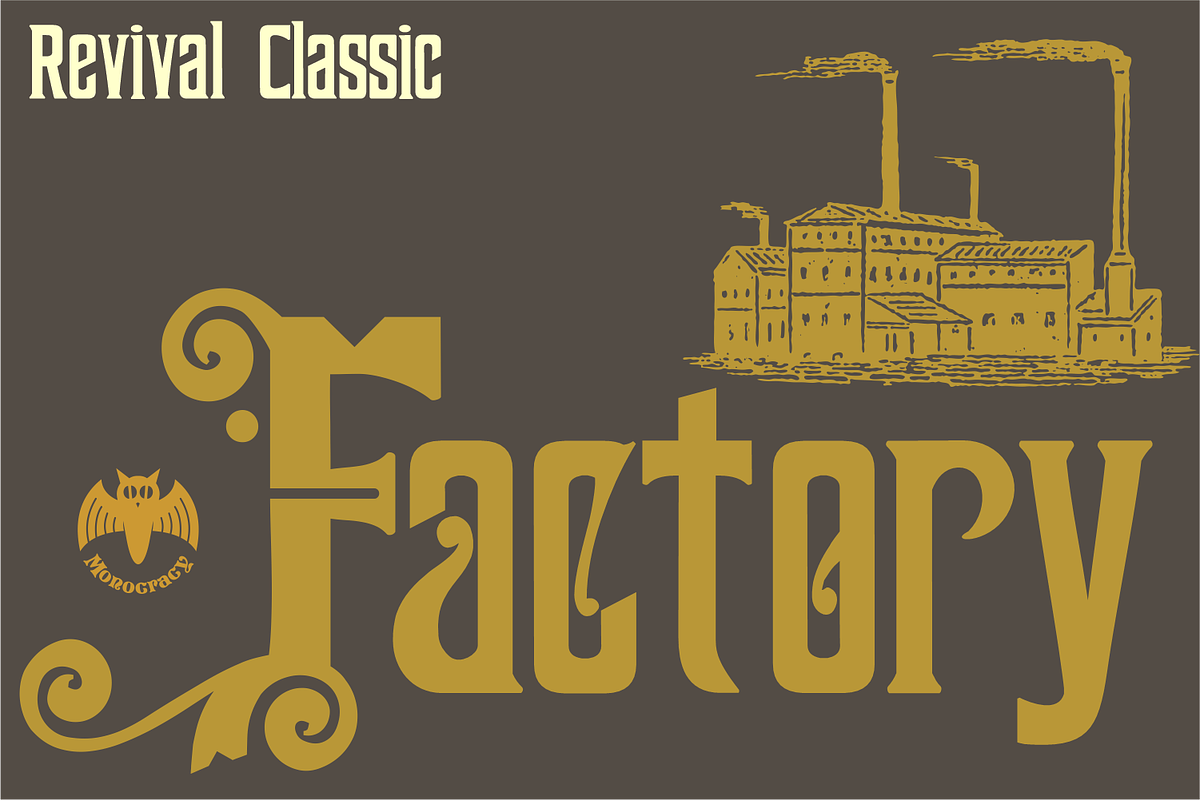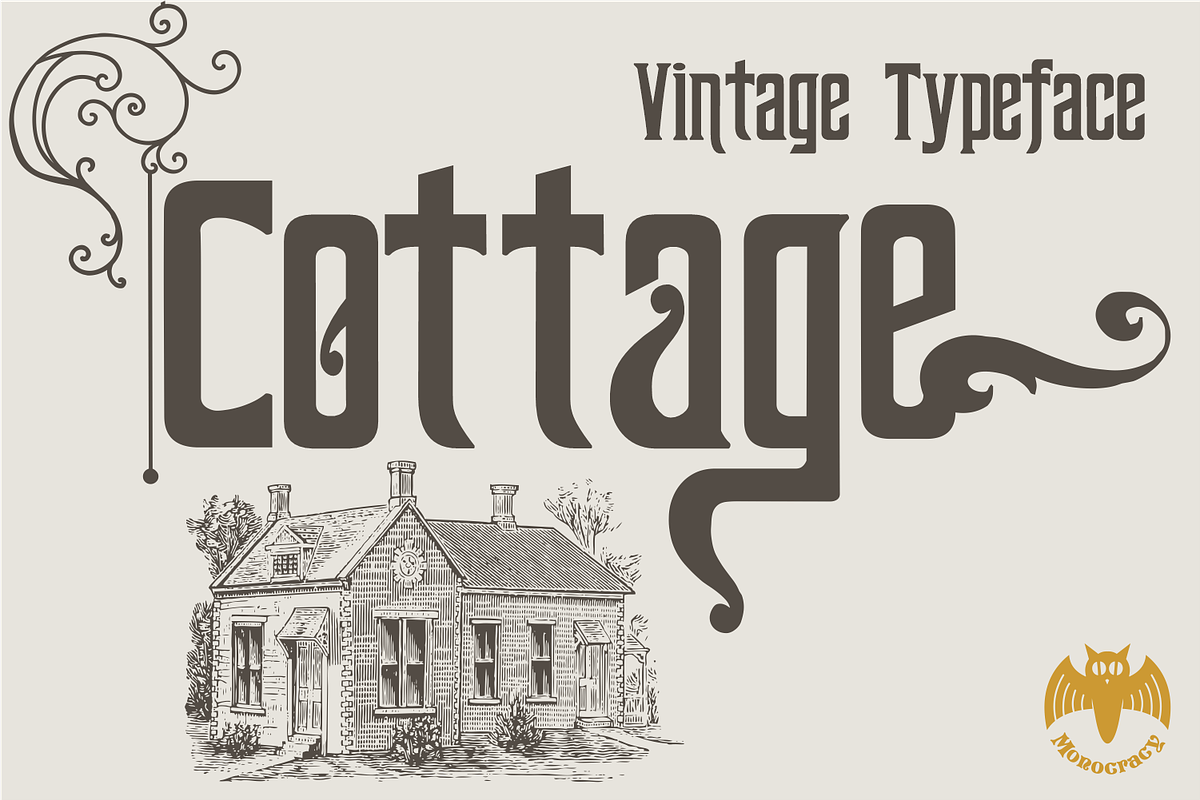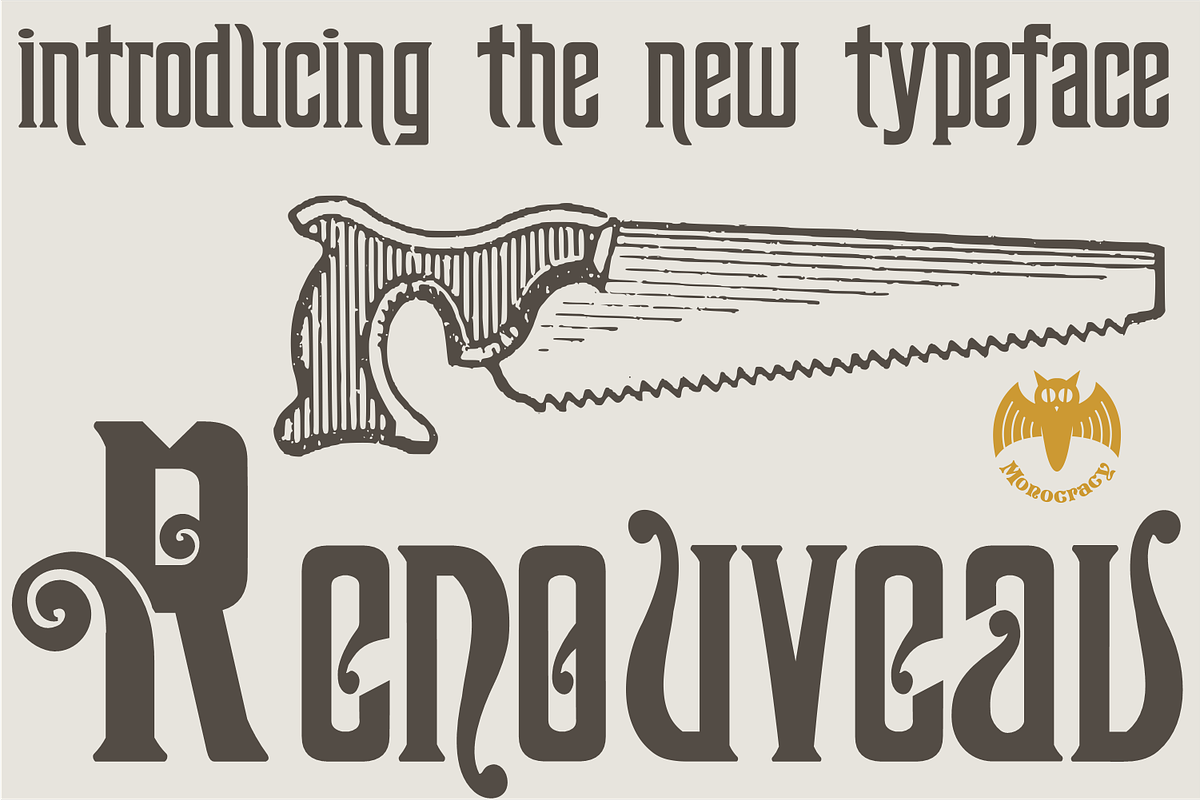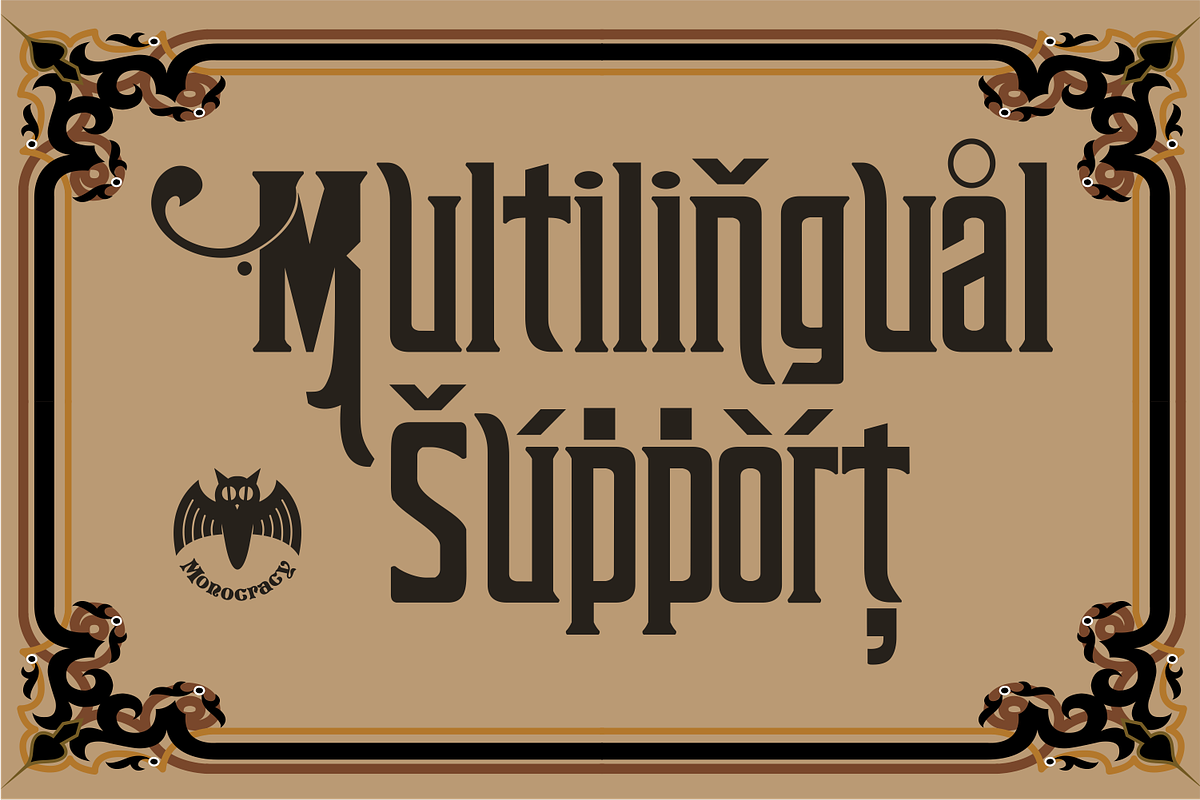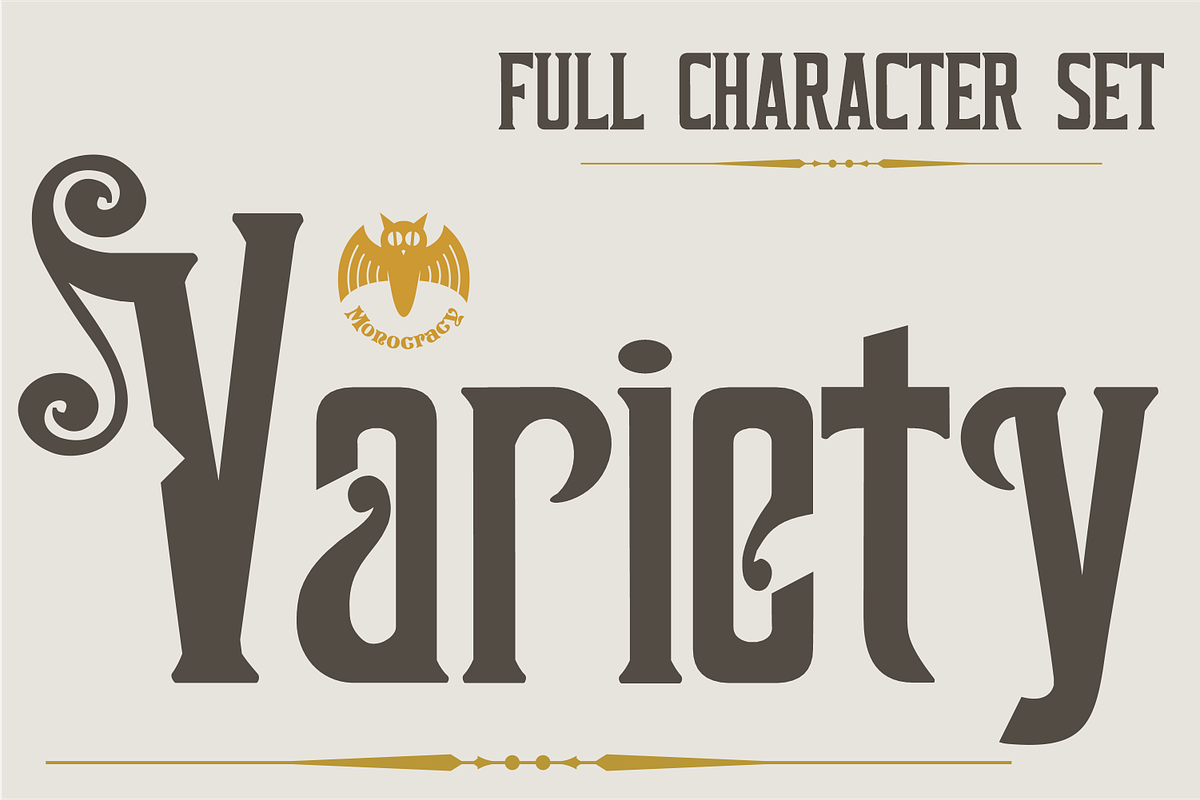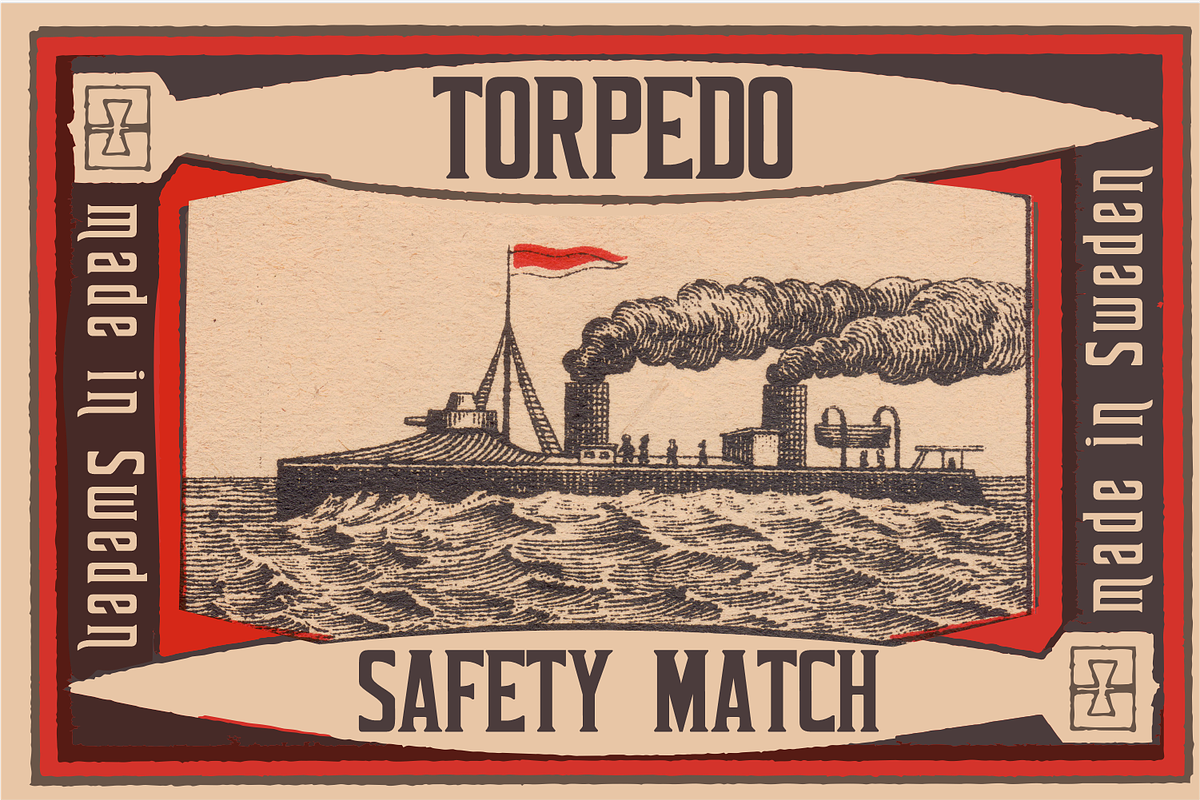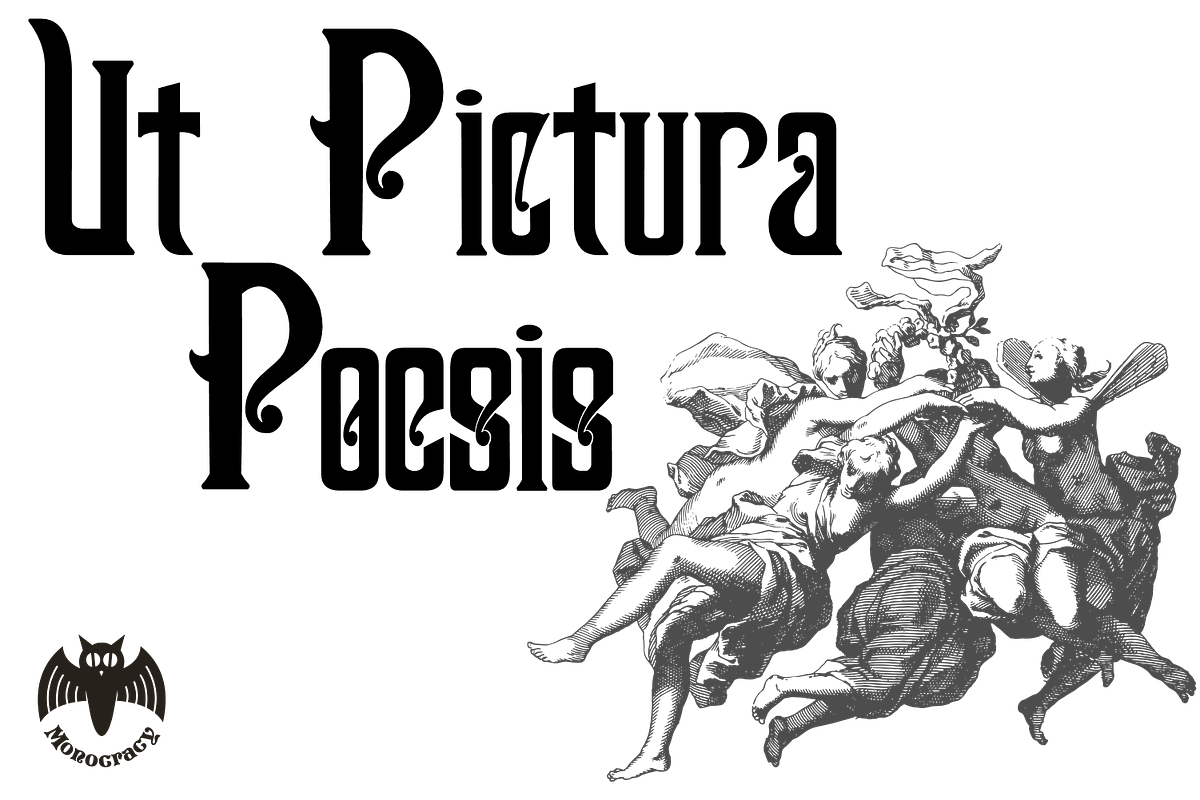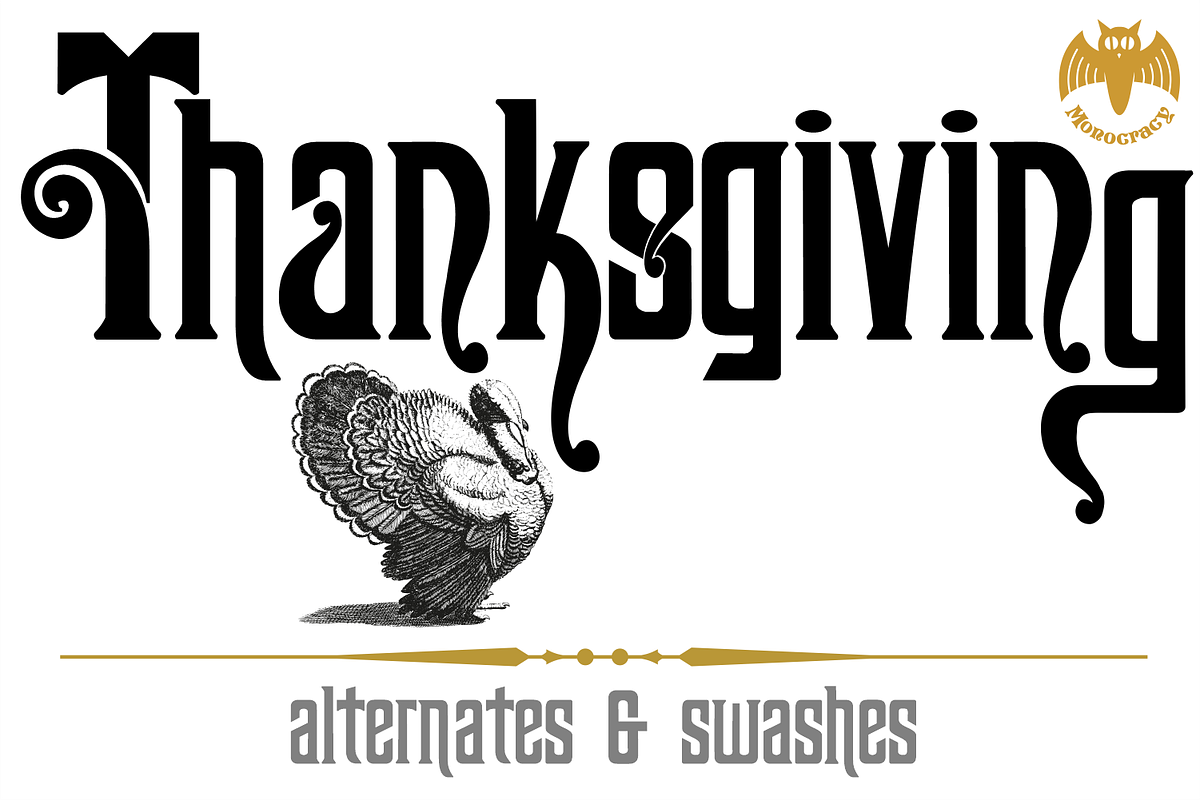
Renouveau
Intellecta in partnership with Monocracy Types (Paulo W) presents "Renouveau".
Renouveau : taste the feeling of vintage typography. Inspired by the old letters at classic Victorian Era into the first decades of the XX century. This is a multi use typeface with over 600 glyphs which comes with wide variation of letters, accessible via OpenType features.
A display typography in addition to your design arsenal. Suits for any project : labels, t-shirt design, typographic quotes, posters, packaging, wedding invitations, headlines, logo and branding, web, magazine covers, editorial design, print posters, signage, window shop design. It works beautifully for branding and advertising.
Using the many ornamental forms and alternates you can create realistic headers.
This display font has all standard character letters such as capital letters and lowercase letters, currency figures, numerals, punctuation. As well a complete multi-lingual support, to another languase systems from Europe and Asia countries.
Althought a victorian style typeface, we keep simple the shape of the letters, to avoid the extravaganza from that epoch.
You will get special capital letters and lowercases when you activate the alternate features or can choose alternatively manually on your software feature, like adobe illustrator, corel and others.